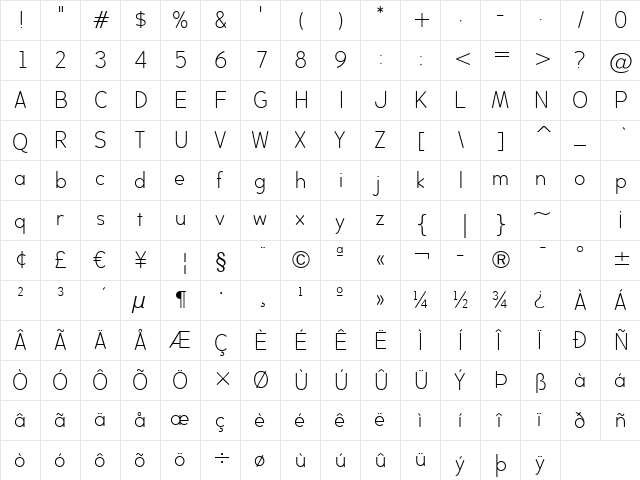
BacktalkSans BTN Lt Regular
Design Context for BacktalkSans BTN Lt Typeface
BacktalkSans BTN Lt takes a measured approach to typography — its balanced proportions and neutral character make it a reliable workhorse for both digital and print work. Its slender proportions lend an understated elegance to any composition.